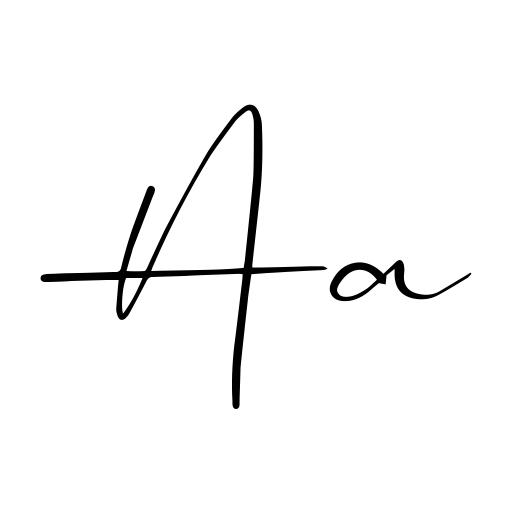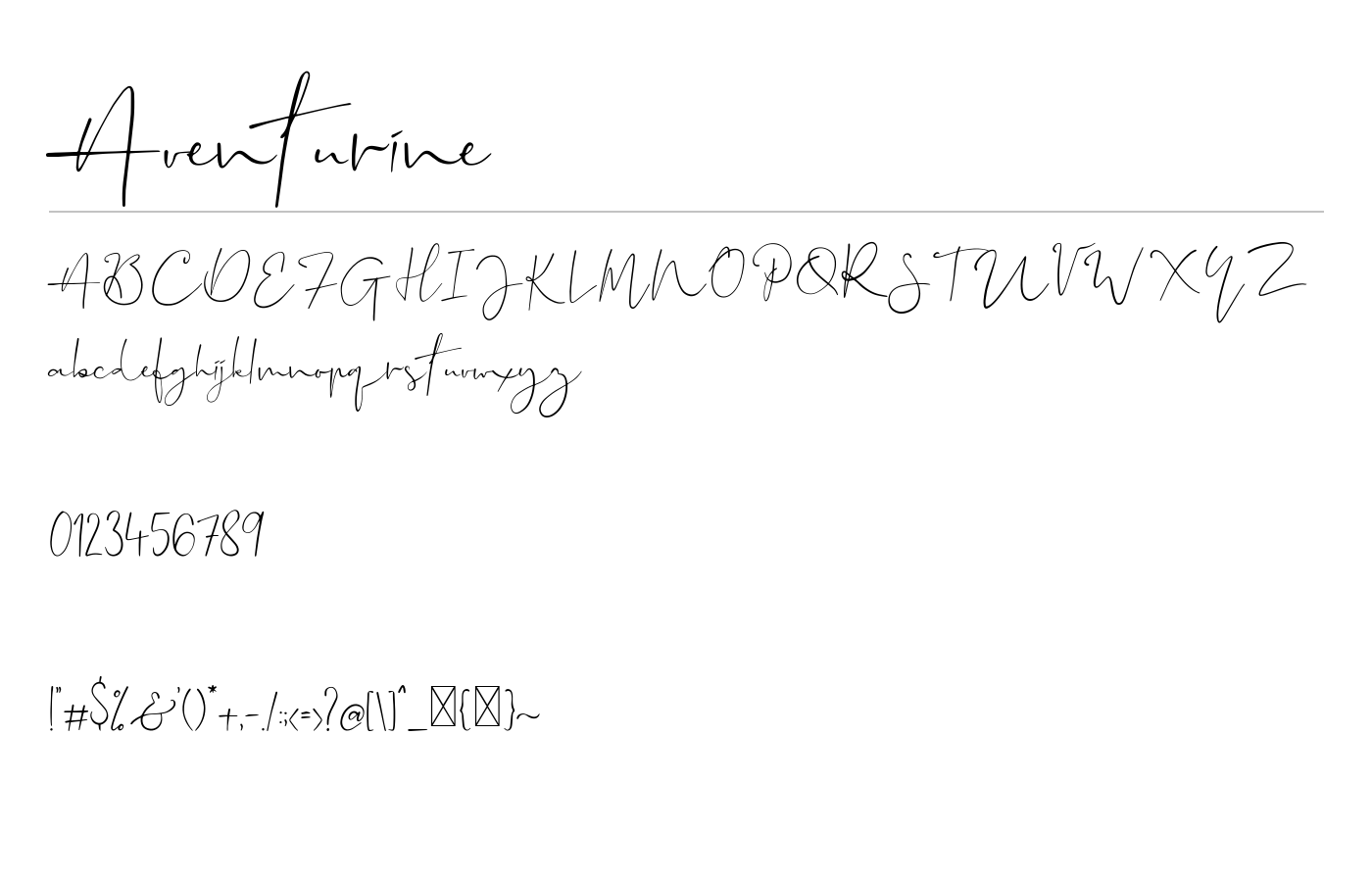
Aventurine is an elegant, delicate script font characterized by its thin, flowing strokes and airy letterforms that mimic natural handwriting with a sophisticated touch. It features tall, slender uppercase letters and a casual, whimsical style that makes it perfect for branding, invitations, and creative projects seeking a personal yet refined look. This font works beautifully in designs where a light, artistic feel is desired, adding charm and individuality without overwhelming the overall design.
Aventurine Font